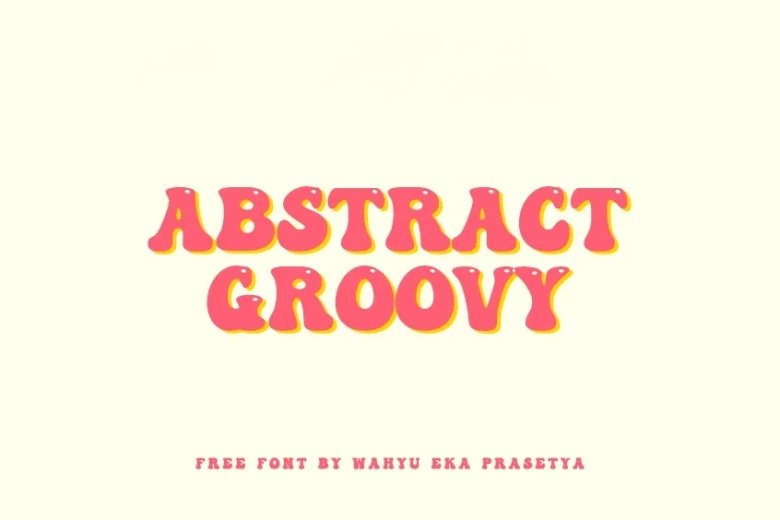
Abstract Groovy Font
Abstract Groovy Font has a groovy nostalgic feel and radiates a cool vintage/retro vibe. The font appears to be a balloon version of the letters in the “Keep on Truckin” font. It has all-caps, small letters, and punctuation marks. It was created by Wahyu Eka Prasetya and is free for all uses. Let your creativity run wild with this bubble font.
It’s been masterfully produced to become a firm favorite and is guaranteed to raise your designs to new heights in style. Perfect for retro designs, procreate, branding, shirts, logos, procreate, stickers, Cricut projects, Instagram, social media, etc.
Abstract Groovy Display Font